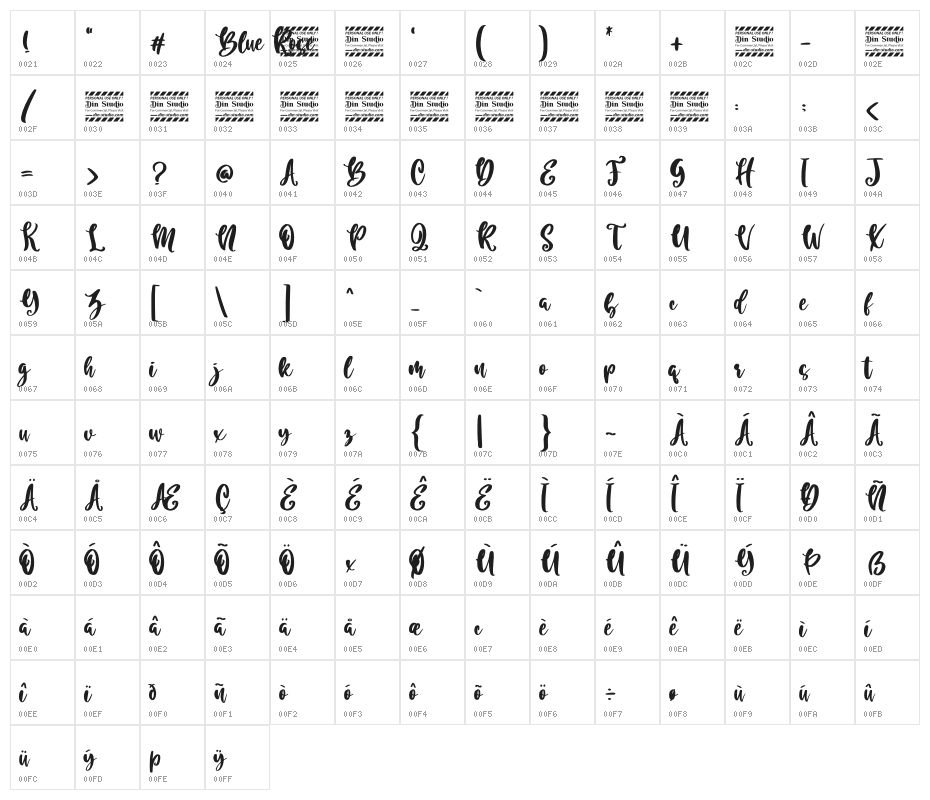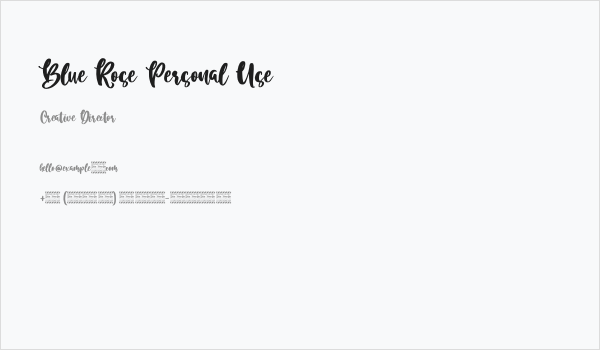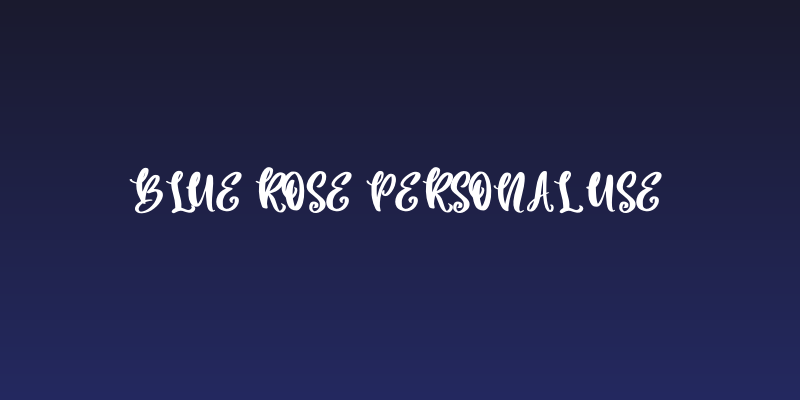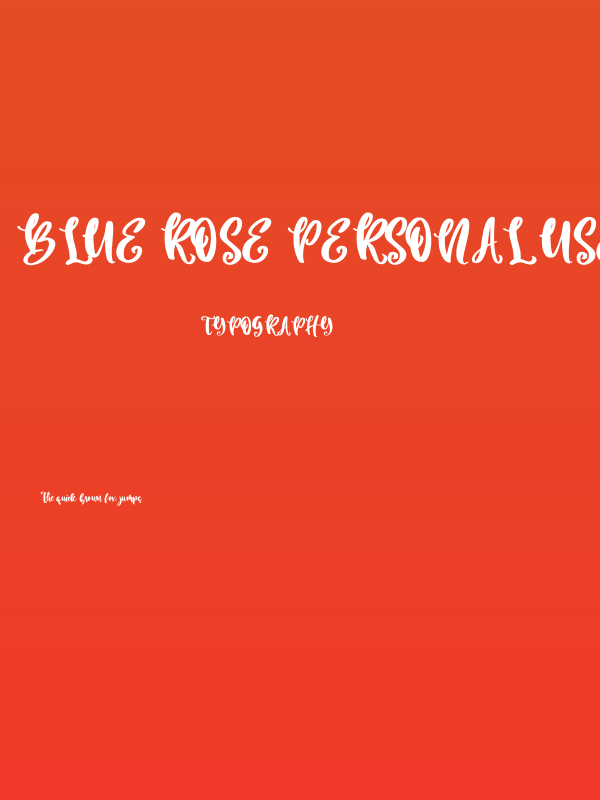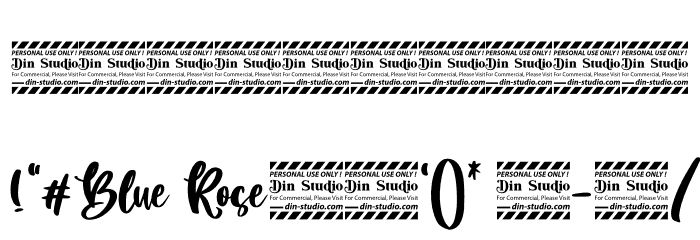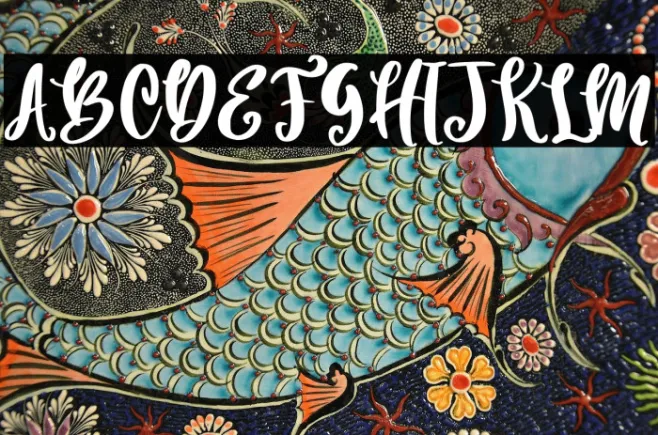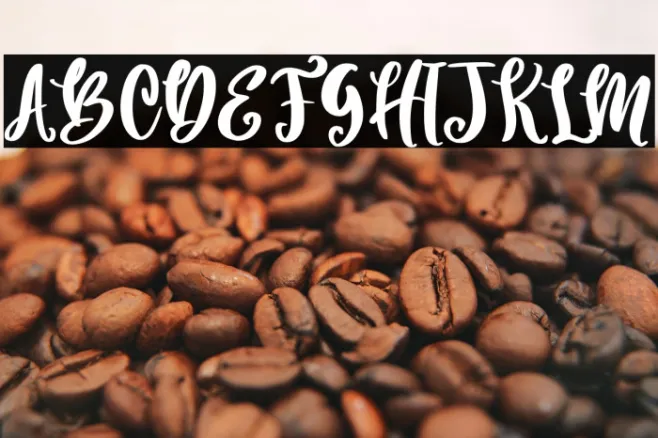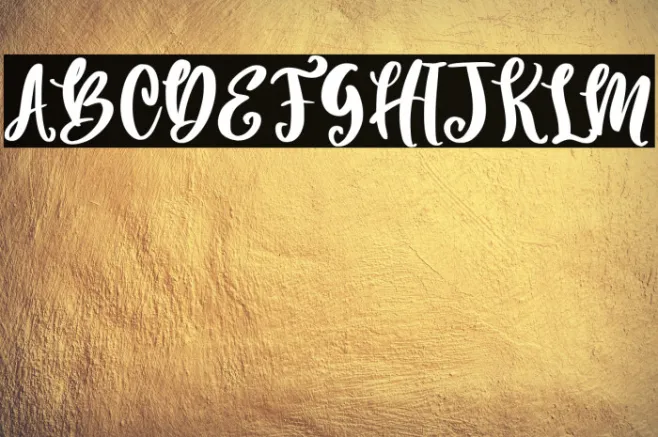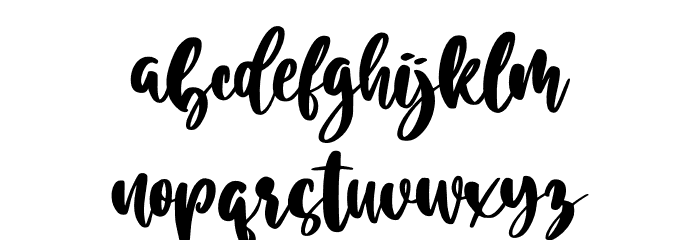
Blue Rose Personal Use Font
Blue Rose Personal Use Description
This font features a bold and expressive script style with a flowing, hand-drawn appearance. The uppercase letters are characterized by their dramatic flourishes and sweeping curves, giving them a sense of movement and elegance. The lowercase letters maintain a consistent style, with smooth connections between characters, enhancing the handwritten feel. The overall design is playful yet sophisticated, making it suitable for creative and artistic projects. The font includes a range of special characters, adding versatility to its use. Its bold weight and high contrast between thick and thin strokes make it stand out, while the character spacing is relatively tight, emphasizing its decorative nature.
| Proposed Projects | Ideal for wedding invitations, branding, logos, and artistic projects requiring a personal touch. |